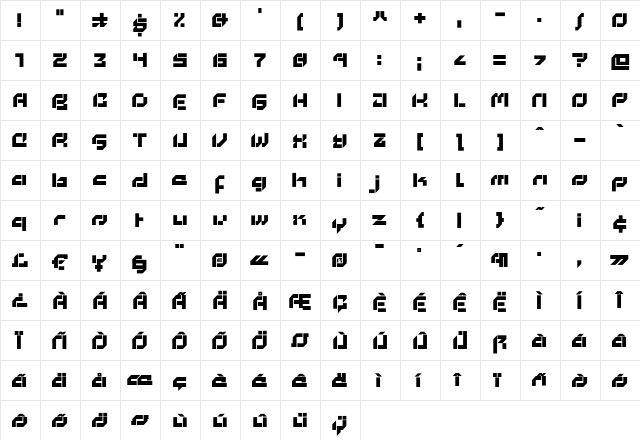
Cyberwar Regular
Design Context for Cyberwar Typeface
Cyberwar channels digital-age aesthetics through its sharp, structured letterforms — ideal for brands that want to signal innovation.
Pro Tip: Use Cyberwar in combination with a neutral sans for body text. Let it define the brand voice in headlines while keeping reading comfortable elsewhere.